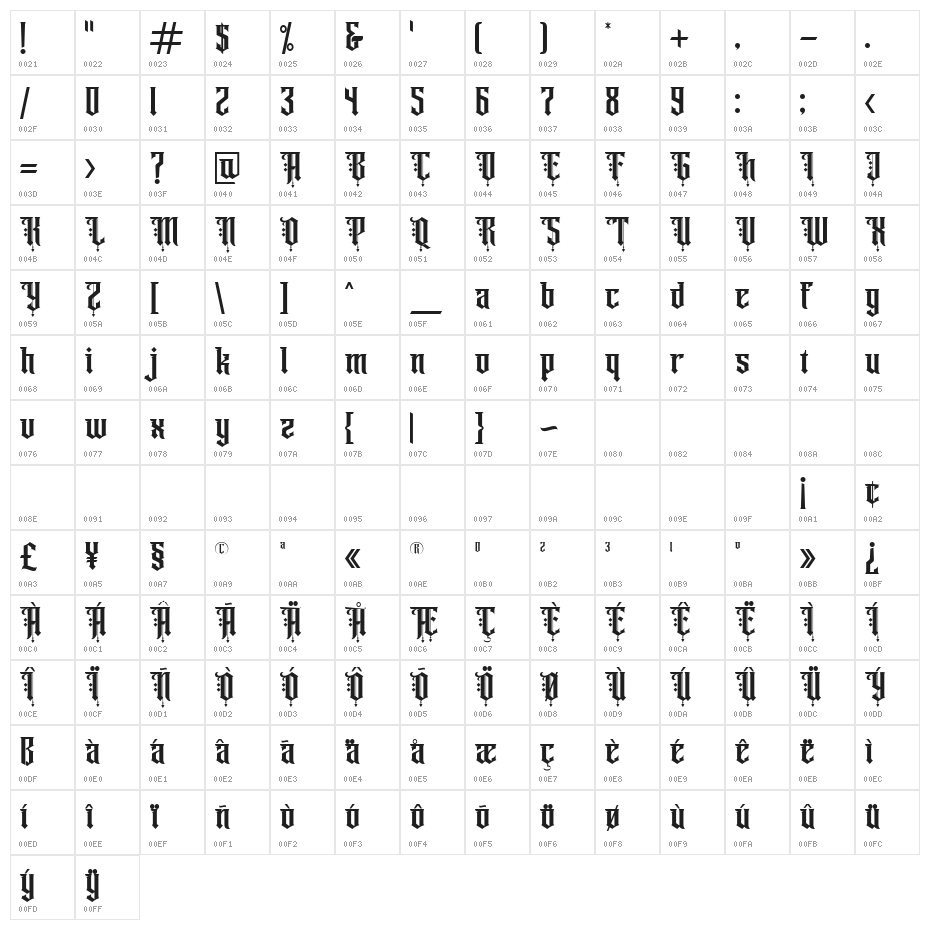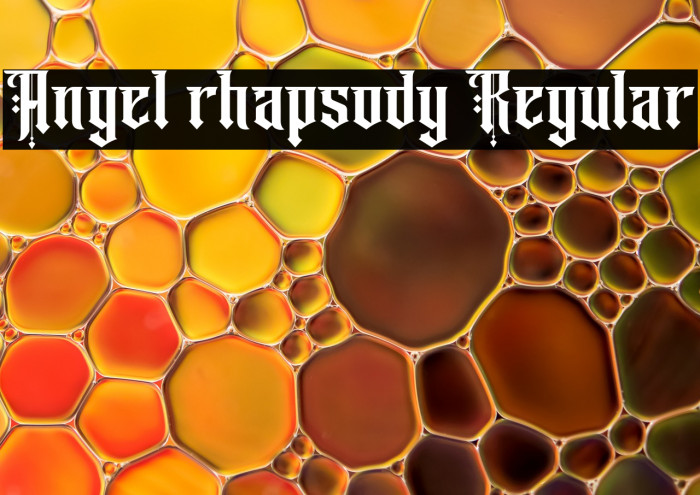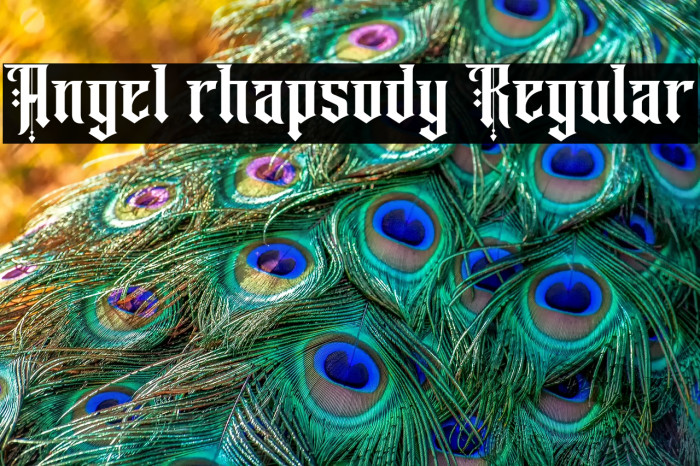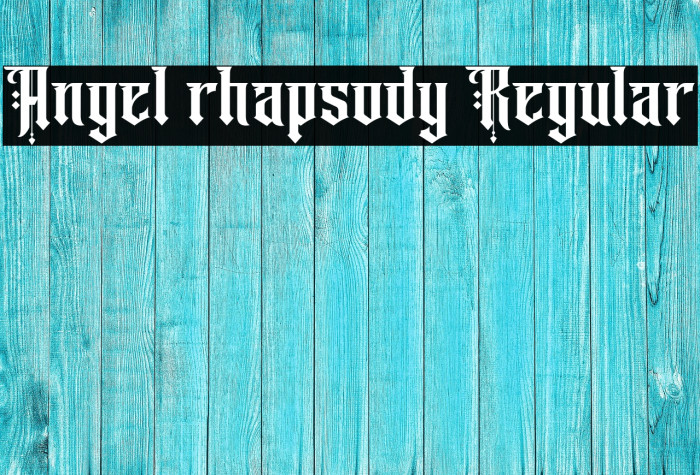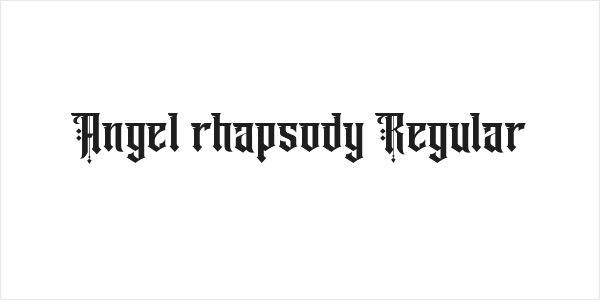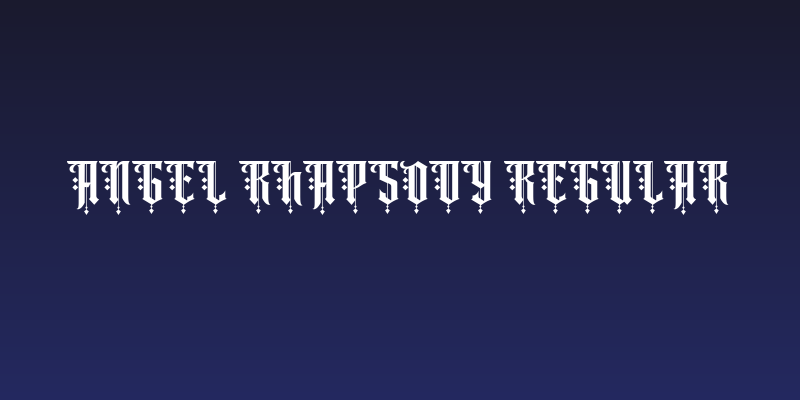
Angel rhapsody Regular Font
Angel rhapsody Regular Description
This font exudes a strong Gothic influence, characterized by its sharp, angular lines and intricate details. The uppercase letters are particularly striking, with ornate embellishments that add a sense of grandeur and historical depth. The lowercase letters maintain a consistent style, offering a cohesive look across different text sizes. Numbers and special characters are designed with the same attention to detail, ensuring uniformity throughout. The overall appearance is bold and dramatic, making it suitable for projects that require a touch of elegance and tradition.
| Use Case | Headlines, Logos, Decorative text |
| Proposed Projects | Ideal for use in historical or fantasy-themed designs, book covers, posters, and branding that seeks a classic or medieval aesthetic. |